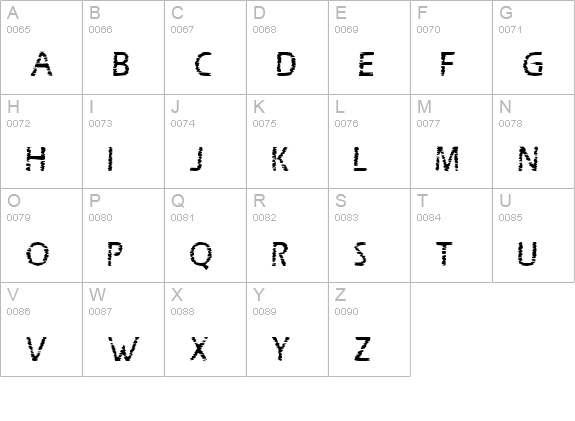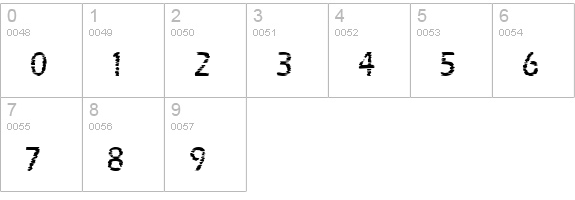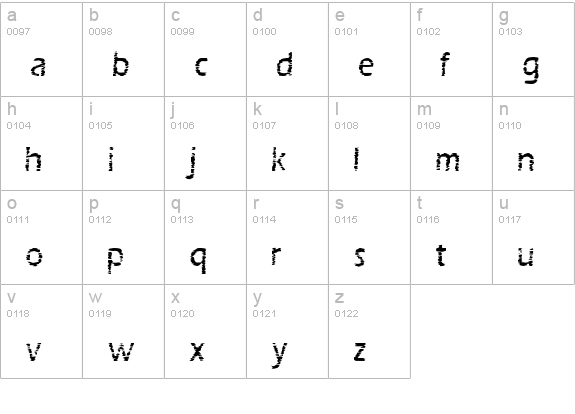
Introducing Scratch Board font, a stunning typeface that brings a unique and artistic touch to your designs. With its beautifully hand-drawn letterforms, Scratch Board font adds a sense of creativity and authenticity to any project. Featuring a playful yet sophisticated style, this font is perfect for a wide range of design purposes. Whether you're creating eye-catching logos, captivating headlines, or adding a personal touch to your branding materials, Scratch Board font is sure to impress. One of the best things about Scratch Board font is that it is available for free download at FontsMarket.com. This means that you can easily access and use this remarkable font without any cost. It's a fantastic opportunity to enhance your design work without breaking the bank. The versatility of Scratch Board font is truly remarkable. Its hand-drawn aesthetic gives it a timeless appeal, making it suitable for both modern and vintage-inspired designs. The attention to detail in each letterform ensures that your text will stand out and make a lasting impression. Whether you're a professional designer or a hobbyist, Scratch Board font is a must-have in your font collection. It offers endless possibilities for creating unique and captivating designs. So don't miss out on this incredible font that is freely available to download at FontsMarket.com. Grab your copy today and let your creativity soar!